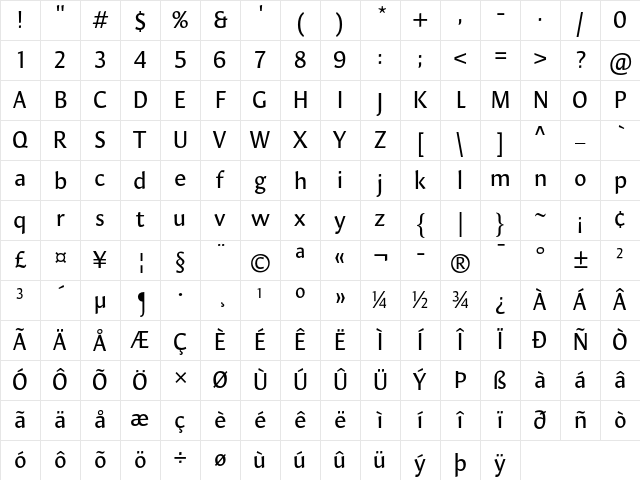
Hildegard LT Std Regular
Designer: Jan Sonntag
Design Context for Hildegard LT Std
Hildegard LT Std is a composed and adaptable typeface that performs quietly and consistently across a wide range of design contexts. Its slender proportions lend an understated elegance to any composition.
Pro Tip: Use Hildegard LT Std in both headline and body roles to test its range before committing to a single application.